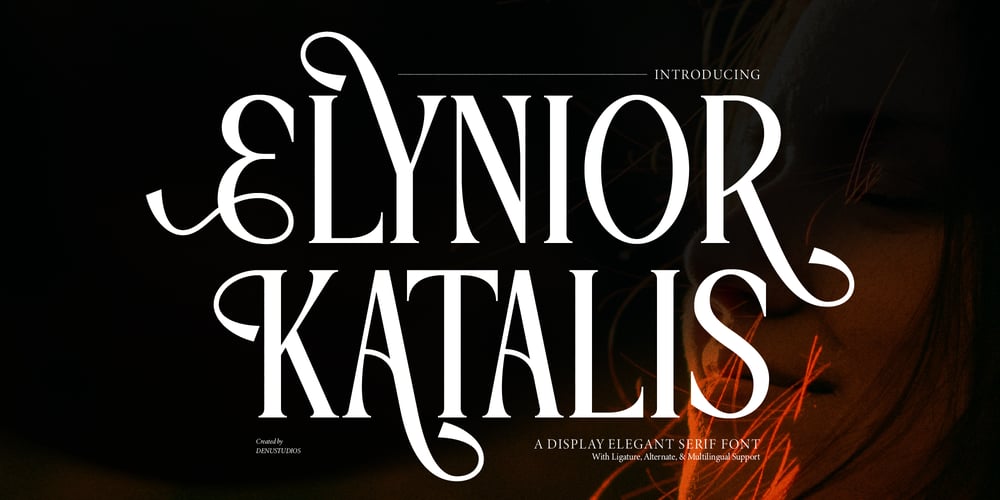
Elynior Katalis
Elynior Katalis font
Elynior Katalis Font Family was designed by Dede Nugraha and published by Denustudio. Elynior Katalis contains 2 styles and family package options. Elynior Katalis | Display Elegant Serif, from Denustudios, suitable for any projects such as: logos, branding projects, homeware designs, product packaging, mugs, quotes, posters, shopping bags, t-shirts, book covers, name card, invitation cards, greeting cards, label, photography, watermark, special events, and all your other lovely projects that need a Display Elegant Serif taste.===========================================================================What’s Included : Regular and Italic Web Font Standard glyphs Alternate and Ligature Works on PC & Mac Simple installations Accessible in the Adobe Illustrator, Adobe Photoshop, Adobe InDesign, even work on Microsoft Word and Other Software. PUA Encoded Characters – Fully accessible without additional design software. Fonts include multilingual support Hope you enjoy with our font!